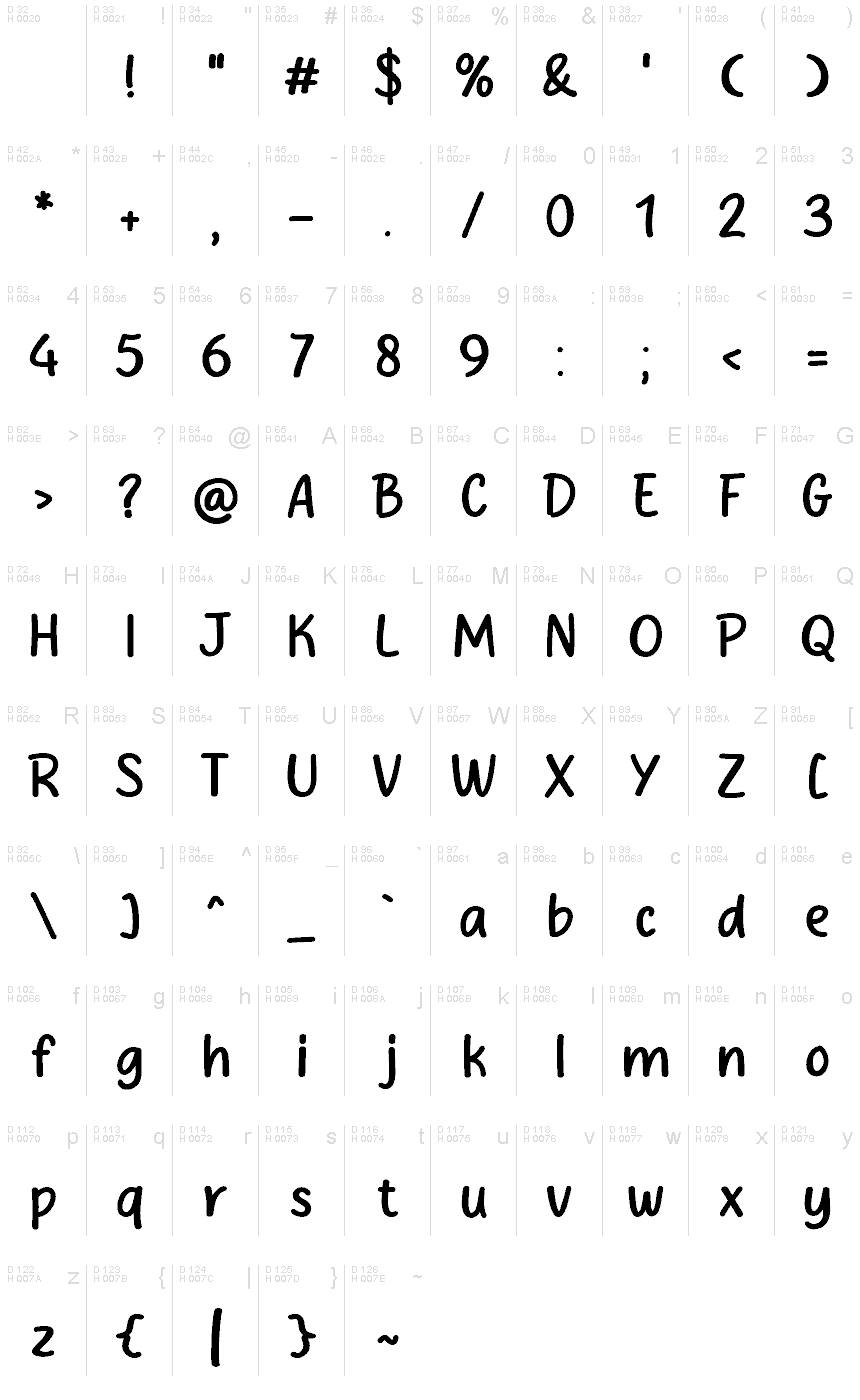
Honey Salt font is designed by MJType with a friendly approach and a casual atmosphere. Each letter flows smoothly as part of an unobstructed text that the eyes can easily access, making this handwritten font great for modern projects whose texts can be both highlighted and inviting.
This free handwritten font combines modernity in form and performance so that beauty products branding designs, favorite recipe books, food blogs, or packaging projects keep that comforting feel. Honey Salt is also great for branding designs of all kinds including cosmetics, workshops flyers, menu displays for restaurants or coffee shops, landing pages design and others.